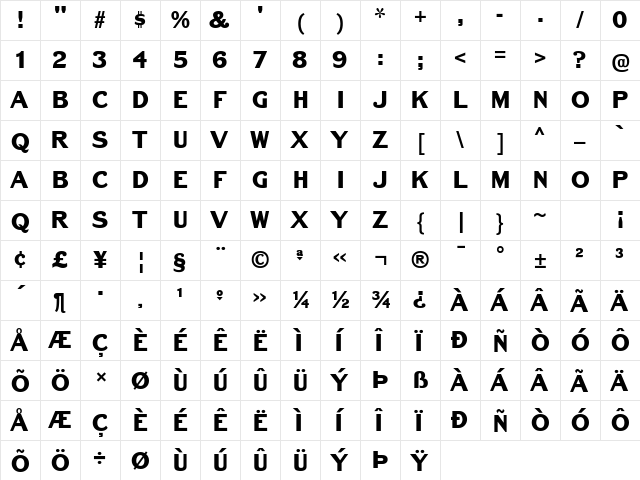
Bench Grinder Titling Regular
Design Context for Bench Grinder Titling Typeface
Bench Grinder Titling offers clean, dependable letterforms without strong stylistic allegiance, making it a practical choice for designers who need flexibility.